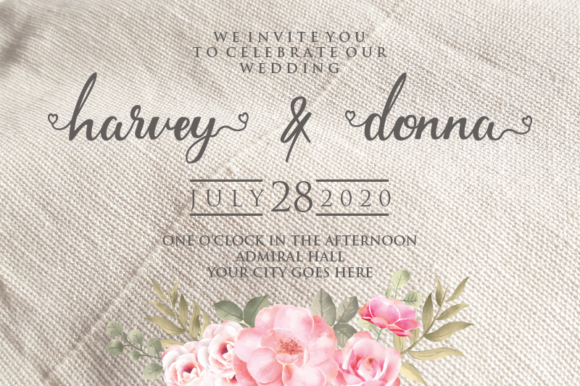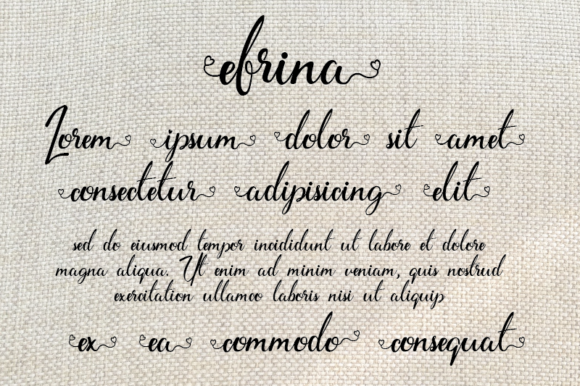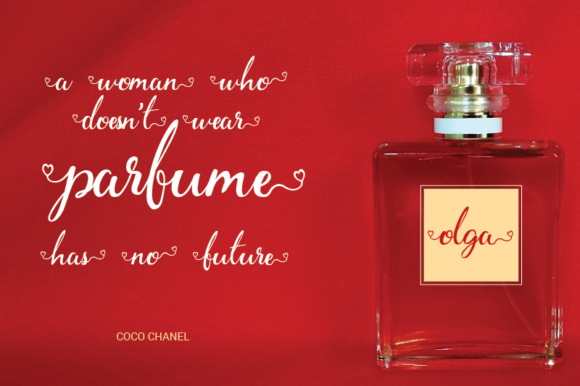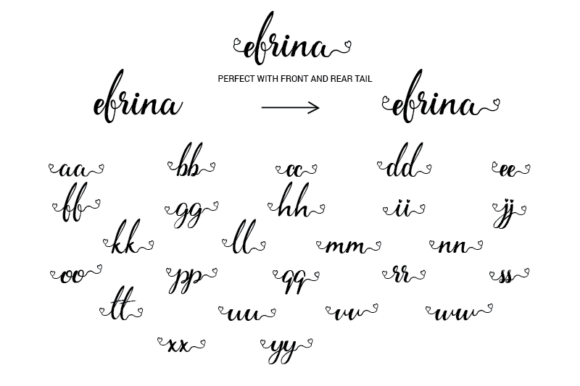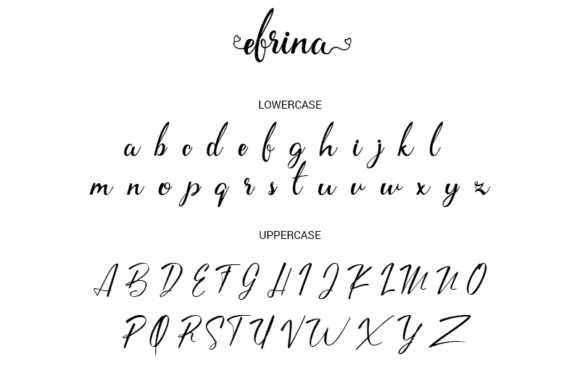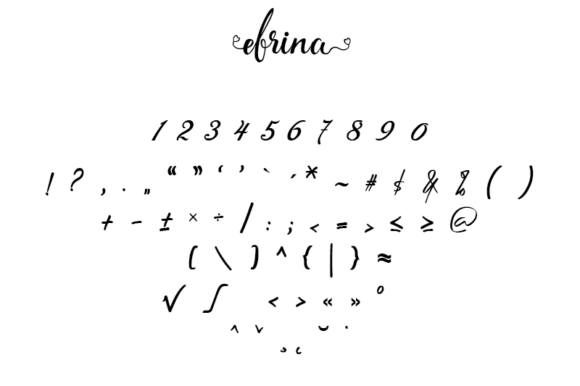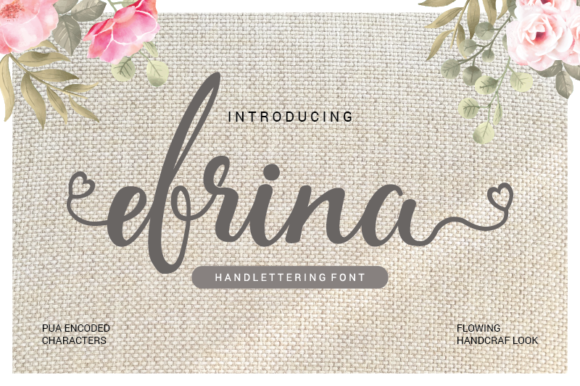
Efrina Font: Elevate Your Designs with Elegance and Sophistication
Are you tired of using the same old fonts in your designs? Look no further than Efrina Font, a delicate, elegant, and flowing handwritten font that is sure to take your creative projects to the next level. With its beautiful and well-balanced characters, Efrina matches a wide pool of designs, making it the perfect addition to your font collection.
The Characteristics of Efrina Font
Efrina Font boasts a range of characteristics that make it a standout choice for designers and crafters. Its varying baseline and smooth lines give it a fluid, organic feel that is both visually appealing and highly legible. The font also features gorgeous glyphs and stunning alternates, allowing you to add depth and variety to your designs.
One of the best things about Efrina Font is that it is PUA (Private Use Area) encoded. This means that you can access all of the glyphs and swashes with ease, giving you maximum flexibility and creative control. With PUA encoding, you can easily insert special characters and alternates into your designs, taking them from ordinary to extraordinary.
A Versatile Font for a Wide Range of Designs
Efrina Font is incredibly versatile, making it suitable for a wide range of designs and projects. Whether you’re creating wedding invitations, branding materials, or social media graphics, Efrina is the perfect choice. Its elegant and sophisticated style works beautifully with a variety of themes and aesthetics, from vintage and bohemian to modern and minimalist.
Why Designers and Crafters Love Efrina Font
So why do designers and crafters love Efrina Font? For starters, its delicate and flowing lines make it a joy to work with. The font is also highly legible, even at small sizes, making it perfect for body text and captions. Additionally, Efrina’s gorgeous glyphs and alternates allow you to add a touch of personality and whimsy to your designs.
Tips for Using Efrina Font in Your Designs
Here are a few tips for using Efrina Font in your designs:
- Use Efrina as a headline font to add a touch of elegance and sophistication to your designs.
- Pair Efrina with a bold, modern font for a striking contrast.
- Experiment with Efrina’s gorgeous glyphs and alternates to add visual interest to your designs.
- Use Efrina for body text to create a beautiful, flowing narrative.
In conclusion, Efrina Font is a beautiful, elegant, and versatile font that is perfect for designers and crafters. With its delicate lines, gorgeous glyphs, and PUA encoding, Efrina is the perfect addition to your font collection. Whether you’re creating wedding invitations, branding materials, or social media graphics, Efrina is sure to elevate your designs and take them to the next level. So why wait? Fall in love with Efrina Font today and start creating spectacular designs that will leave a lasting impression!